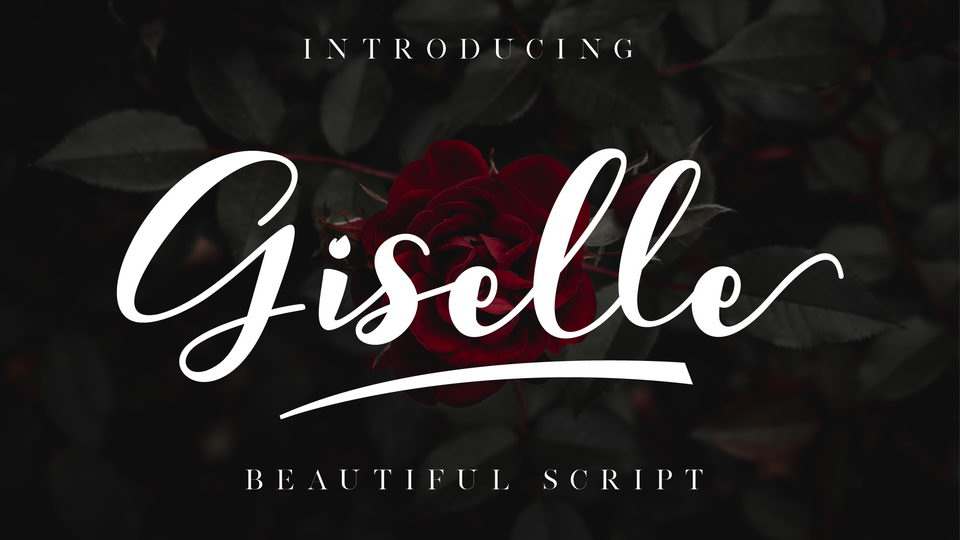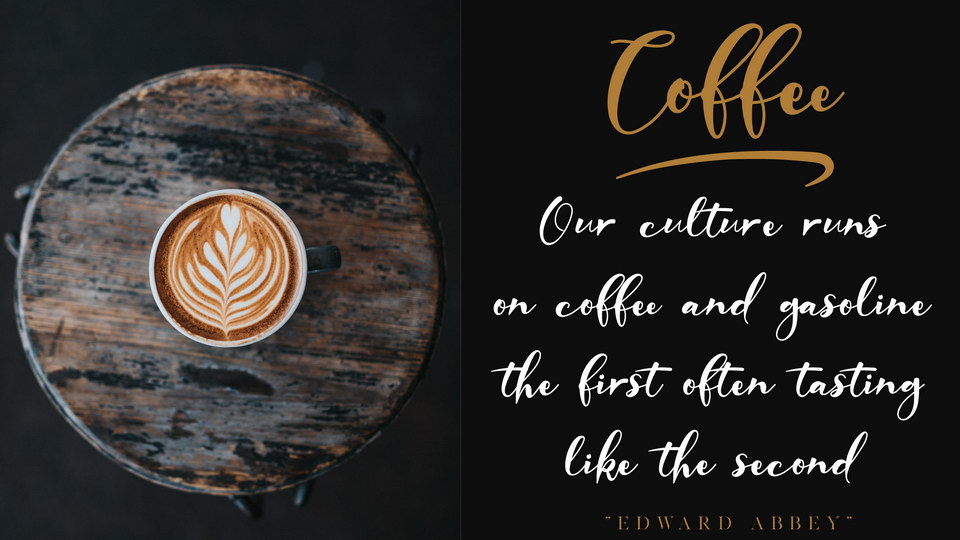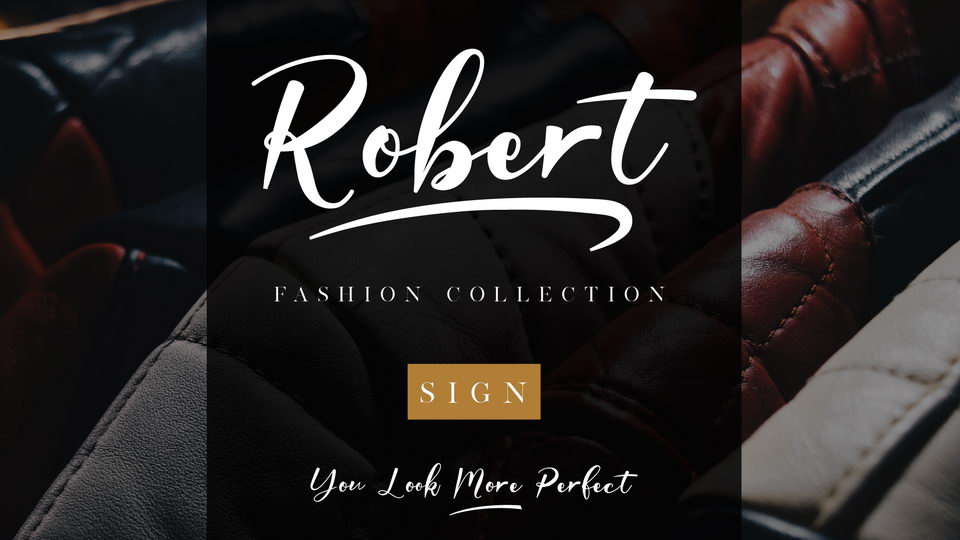
Giselle is a stylish modern calligraphy script font with a charming personality.
Giselle font fits for logos, branding, wedding designs, packaging, pronts, social media posts, and every other design that needs a handwritten touch.